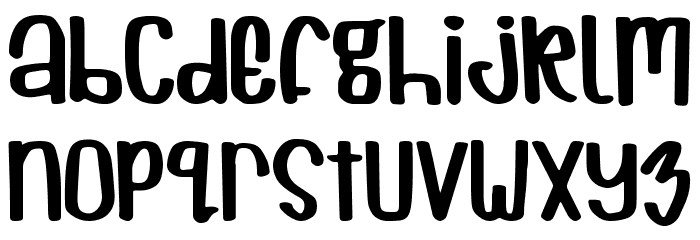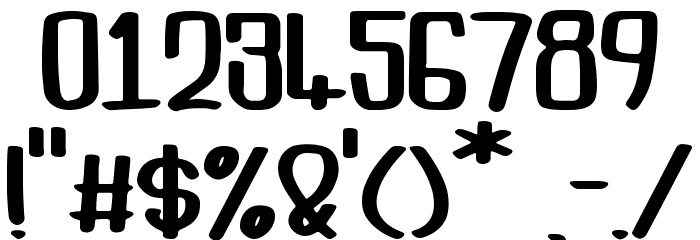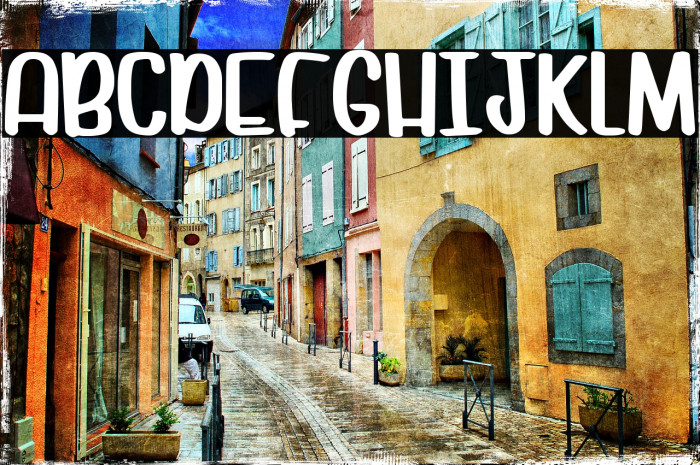
Cuppycake Font
This playful and whimsical font features rounded, bubbly characters that exude a sense of fun and creativity. The letters are bold and slightly irregular, giving them a hand-drawn appearance that adds to their charm. The uppercase and lowercase letters maintain a consistent style, with a smooth flow and rounded edges. The numbers and special characters are equally playful, making this font ideal for projects that require a lighthearted and friendly touch. Its unique style makes it stand out, perfect for capturing attention in a variety of design contexts.
A playful, bubbly font with rounded, hand-drawn characters.
- Proposed Projects: Ideal for children's books, playful branding, party invitations, and creative posters.
- Overall Style: Playful